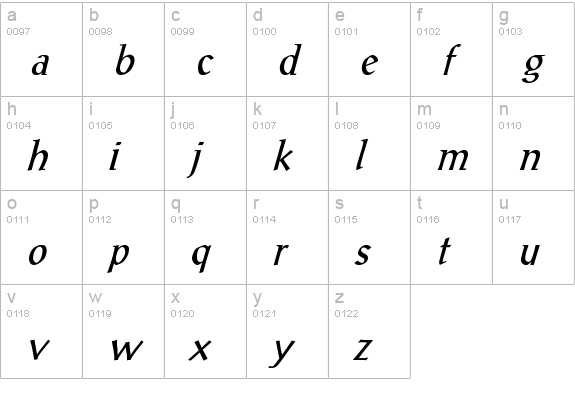
PostAntiqua-Roman Italic is a distinctive, italic variant in the PostAntiqua typeface family \xE2\x80\x94 well suited to design and typography projects.
PostAntiqua-Roman Italic font is a timeless and elegant typeface that exudes sophistication and charm. With its graceful, slanted letterforms and classic Roman styling, this font is perfect for adding a touch of refinement to any design project. Whether you're working on a formal invitation, a stylish advertisement, or a professional presentation, PostAntiqua-Roman Italic will bring a sense of grace and beauty to your work. The best part? This stunning font is available for free download at FontsMarket.com. So you can easily add a touch of class to your projects without breaking the bank. Don't miss out on the opportunity to enhance your designs with the timeless appeal of PostAntiqua-Roman Italic font. Download it now and elevate your work to new heights of sophistication.